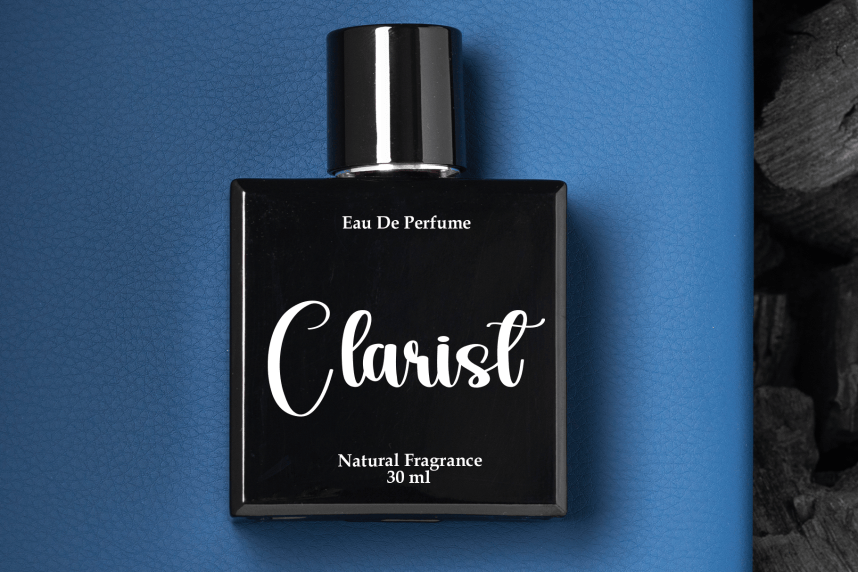
Black Christmas – Stylish Handwritten Script Font
Black Christmas – Stylish Handwritten Script Font, special creative products for you, our products will give you an extraordinary experience. the latest style letters are perfect for wall displays, wedding invitations, social media post logos, advertisements, product packaging, product designs, labels, photography, watermarks, invitations, stationery, and any project that requires taste handwriting.